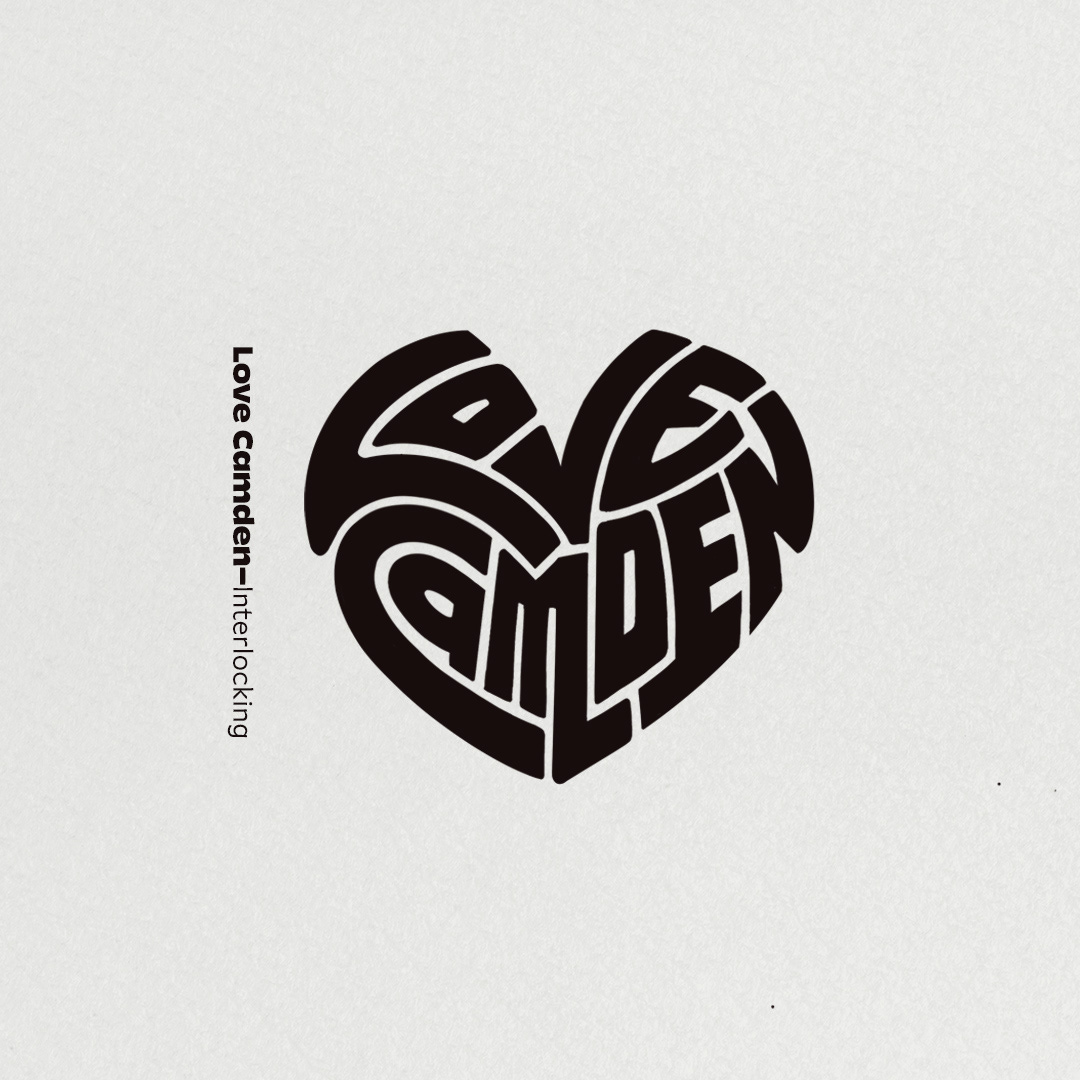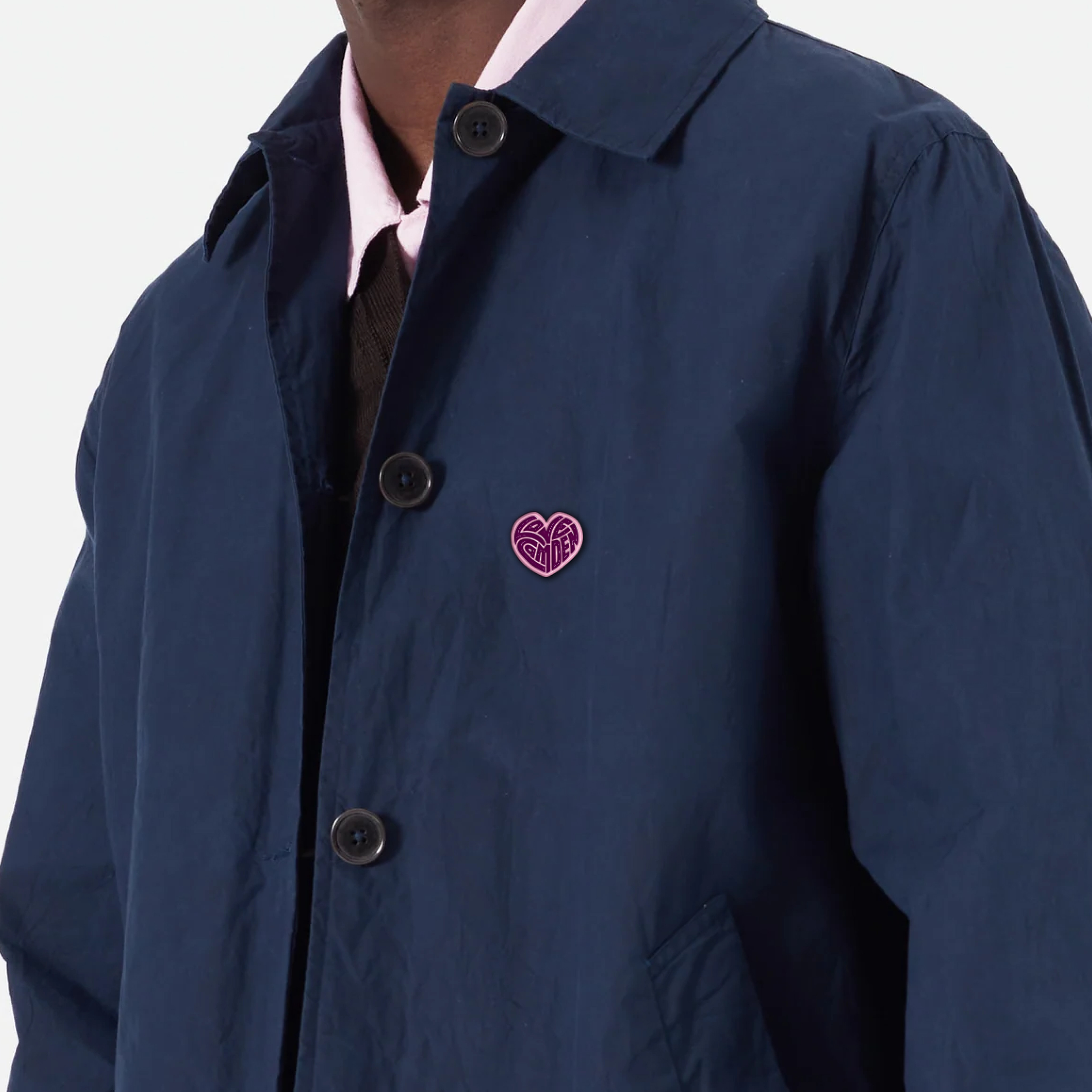
Love Camden is an initiative that celebrates cultural activity across the borough. I teamed up with design agency Peter and Paul to create the logo in the shape of a heart. They wanted it to convey the notion of interconnected streets from above. They also wanted to steer away from the heart being too 'cutesy' and instead convey that this was an inner city initiative that was distinctive.